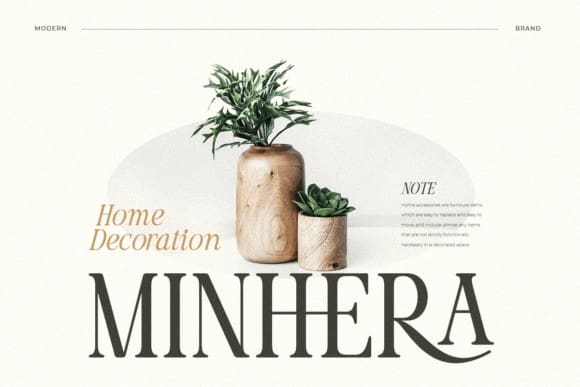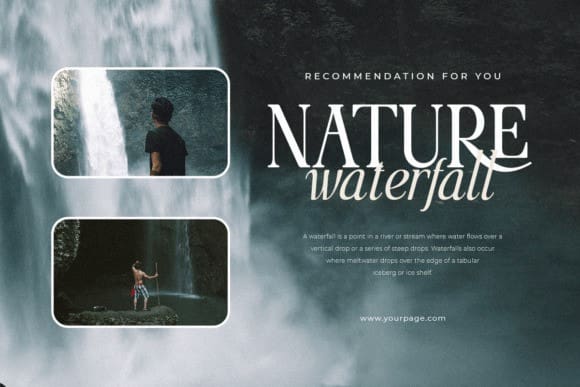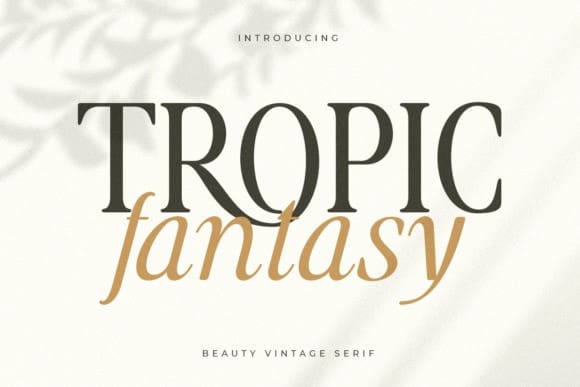
Tropic Fantasy Font
Tropic Fantasy Font is a stylish serif font that epitomizes timeless sophistication. With its refined letterforms and subtle details, this font effortlessly blends classic charm with contemporary flair. Ideal for projects that demand an elegant and versatile typeface, TropicFantasy adds a touch of refined grace to your design repertoire.